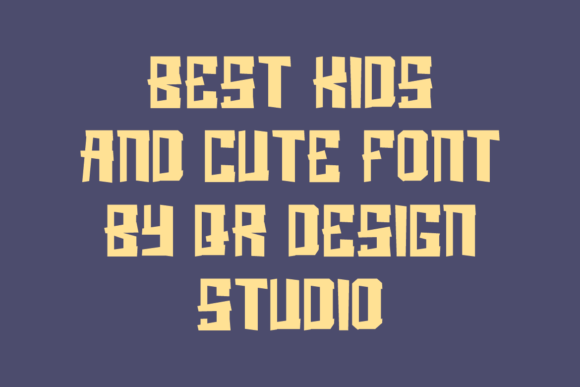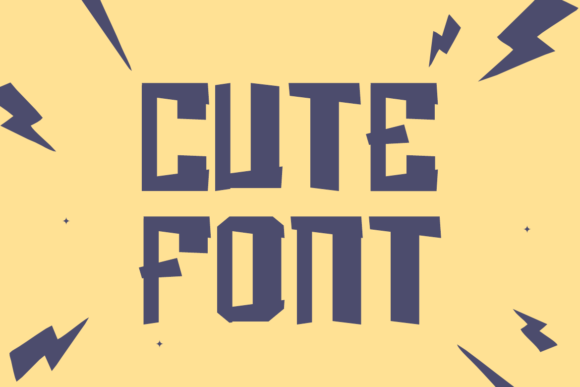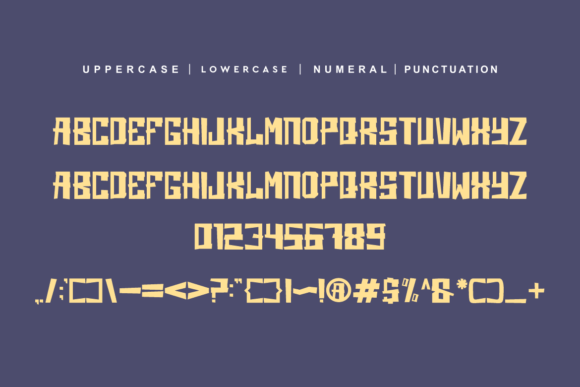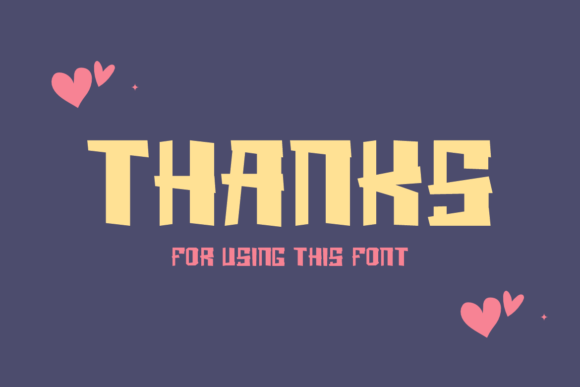
Discover the Quirky Charm of Friend Zones Font
Are you tired of using the same old fonts for your design projects? Look no further than Friend Zones, a unique and interesting display font that’s sure to add a touch of personality to your work. With its quirky charm and versatility, Friend Zones is the perfect choice for designers and crafters looking to make a statement.
A Little Bit Quirky, A Lot of Character
Friend Zones is a one-of-a-kind font that’s sure to stand out from the crowd. Its quirky design gives it a playful and approachable feel, making it perfect for projects that require a bit of whimsy. Whether you’re designing a logo, creating a social media graphic, or crafting a handmade project, Friend Zones is sure to add a touch of personality to your work.
Adapts to a Wide Variety of Contexts
One of the best things about Friend Zones is its versatility. This font looks incredibly adept on a wide variety of contexts, from bold and bright to subtle and sophisticated. Whether you’re working on a children’s book, a fashion brand, or a craft project, Friend Zones is sure to adapt to your needs. Its unique design makes it perfect for headlines, titles, and other display text, while its clear and readable structure ensures that it works well for body text too.
Friend Zones is a font that’s specifically designed with designers and crafters in mind. Its quirky charm and versatility make it perfect for a wide range of projects, from digital designs to handmade crafts. Whether you’re a professional designer or a DIY enthusiast, Friend Zones is sure to inspire your creativity and help you to create something truly unique.
What Makes Friend Zones So Special?
So what sets Friend Zones apart from other fonts? Here are just a few things that make it so special:
- Unique Design: Friend Zones has a one-of-a-kind design that’s sure to stand out from the crowd.
- Versatility: This font adapts to a wide variety of contexts, making it perfect for a range of projects.
- Quirky Charm: Friend Zones has a playful and approachable feel that’s sure to add a touch of personality to your work.
- Clear and Readable: Despite its quirky design, Friend Zones is clear and readable, making it perfect for body text too.
How to Use Friend Zones in Your Designs
Ready to give Friend Zones a try? Here are a few tips for using this font in your designs:
- Use it as a Headline Font: Friend Zones is perfect for headlines and titles, where its quirky charm can really shine.
- Pair it with Other Fonts: Try pairing Friend Zones with other fonts to create a unique and interesting contrast.
- Experiment with Colors: Friend Zones looks great in a wide range of colors, so don’t be afraid to experiment and find the perfect hue for your project.
- Use it for Display Text: Friend Zones is perfect for display text, such as signs, posters, and social media graphics.
Friend Zones is a unique and interesting display font that’s sure to add a touch of personality to your designs. With its quirky charm and versatility, it’s the perfect choice for designers and crafters looking to make a statement. Whether you’re working on a digital design or a handmade craft, Friend Zones is sure to inspire your creativity and help you to create something truly special.
Get Ready to Fall in Love with Friend Zones